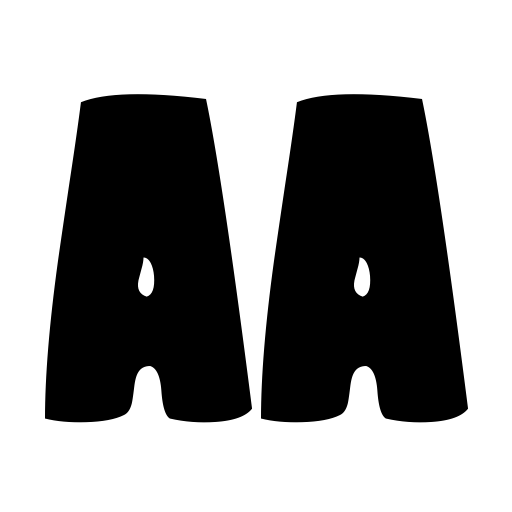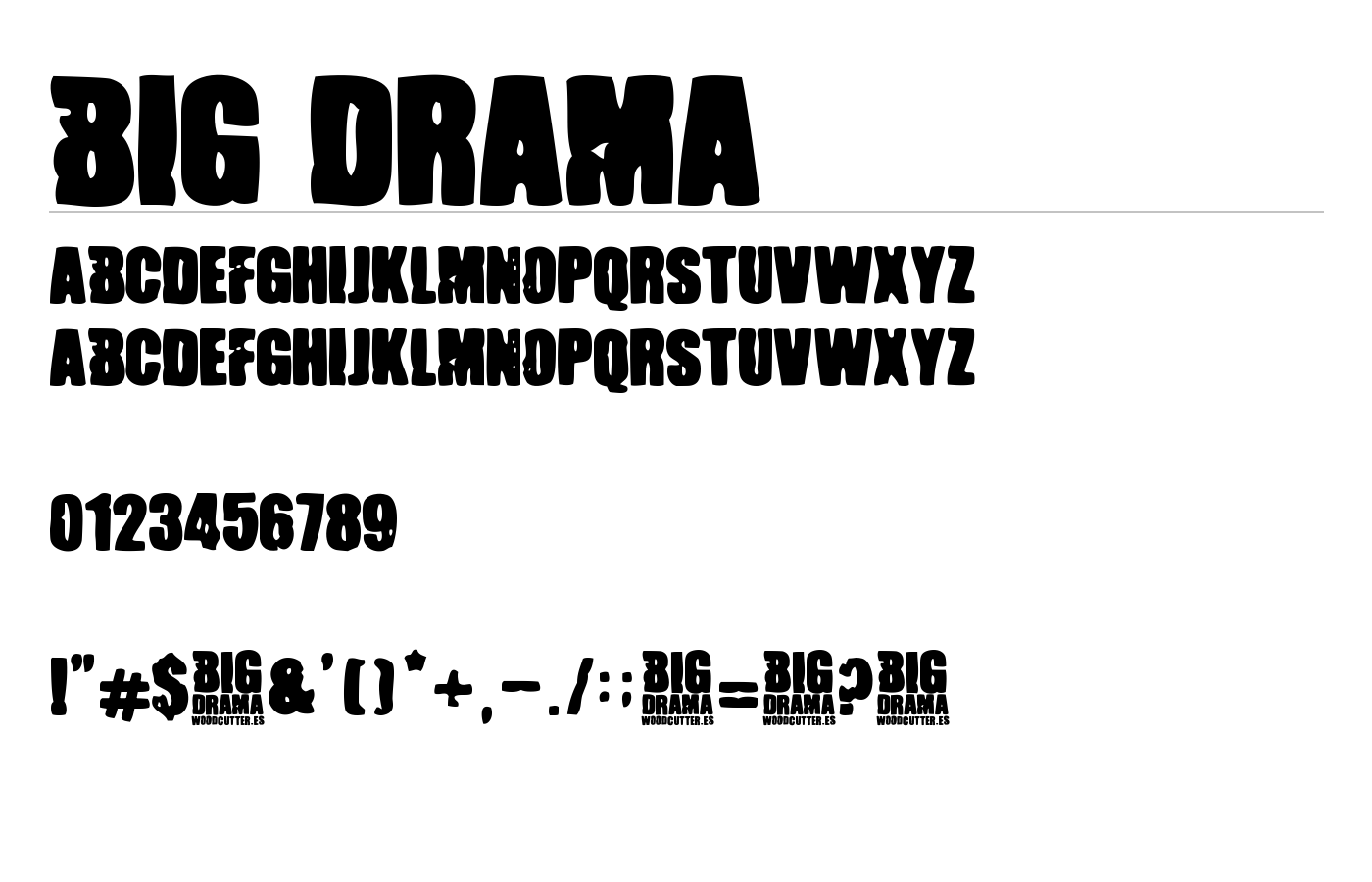
Big Drama is a bold, condensed sans serif font with a playful and slightly quirky character. Its thick, irregular stroke shapes convey a strong and dramatic presence, making it ideal for attention-grabbing headlines, posters, or display use where a vintage or retro vibe is desired. This font’s unique style suits creative branding and designs that need a fun, energetic, and unconventional look.
Big Drama Font
About Big Drama Font